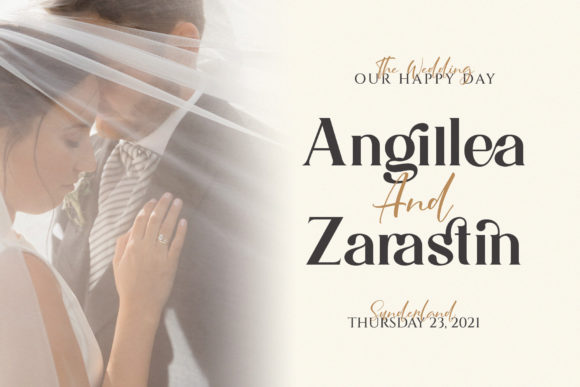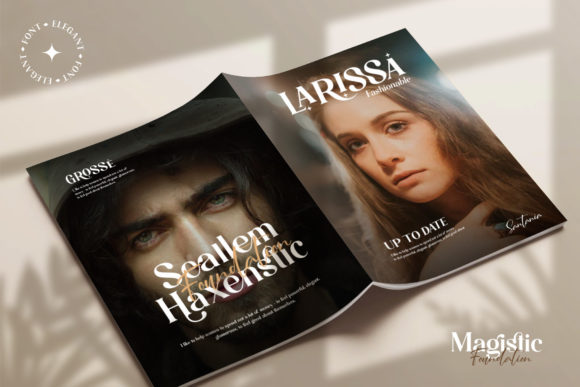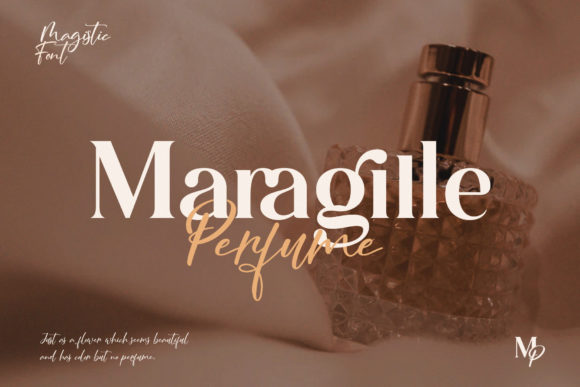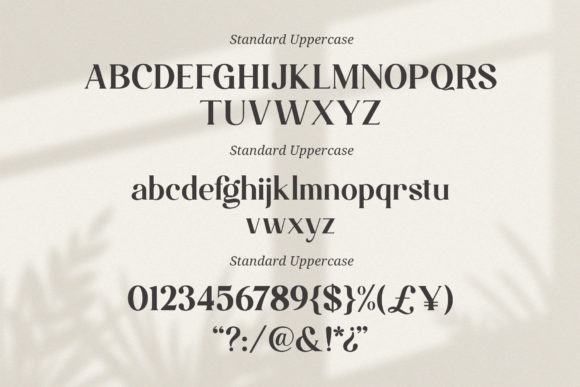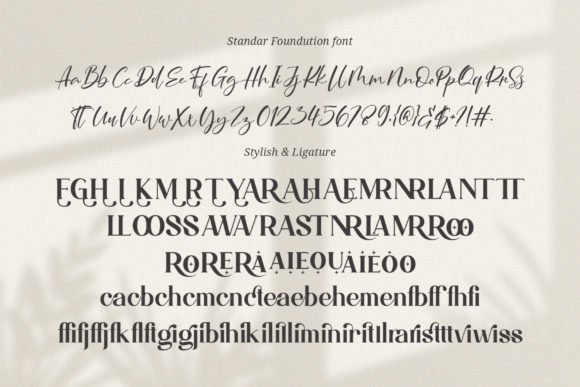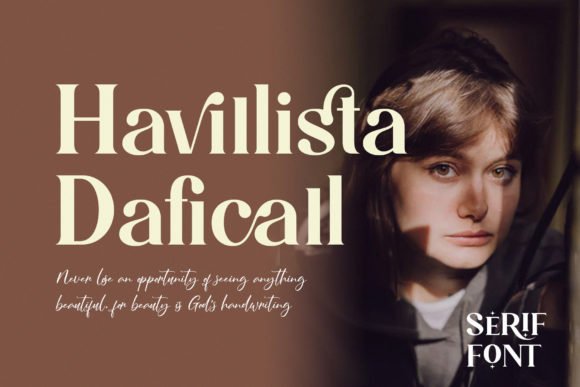
Introduction to Magistic Foundation Font
Imagine you’re working on a creative project, and you need the perfect font to make your design pop. You’ve spent hours browsing through various options, but nothing seems to capture the essence of your brand. That’s where the Magistic Foundation Font comes in – a high-quality, bold, and versatile duo font that’s sure to elevate your design game.
As a designer, you know the importance of having the right tools at your disposal. The Magistic Foundation Font is a valuable addition to any design resource, offering a unique blend of smooth curves and clean lines that’s perfect for fashion branding or editorial designs. Whether you’re working on a free download or a commercial project, this font is sure to impress.
Key Features of Magistic Foundation Font
- High-quality design suitable for creative projects, with a focus on clean lines and modern aesthetics.
- Designed to be highly legible, with clear typography and a consistent font size, ideal for body text and headings.
- Unique characteristic: Magistic Foundation Font is designed to be highly versatile, suitable for use in a wide range of creative projects, from print materials to digital interfaces.
Honest Review: Magistic Foundation Font
As a designer, I’m always on the lookout for high-quality fonts that can elevate my creative projects. The Magistic Foundation Font has been a recent addition to my design resource arsenal, and I’m excited to share my thoughts on it.
- Unique and modern design aesthetic that can add a touch of sophistication to any project
- Wide range of font weights and styles, providing ample options for customization
- Some users may find the font too minimalist, lacking in character or personality
- Not suitable for projects requiring a more classic or traditional font style
Overall, I’m impressed with the Magistic Foundation Font and would recommend it to designers working on modern and creative projects. Its high-quality design and free download option make it an excellent addition to any design resource library.
The Magistic Foundation Font is suitable for a wide range of applications, including branding, marketing materials, and digital products. Its clean and modern design makes it perfect for creating a professional and consistent look across all your design projects.
Overall, the Magistic Foundation Font is a versatile and high-quality design resource that can help take your creative project to the next level.